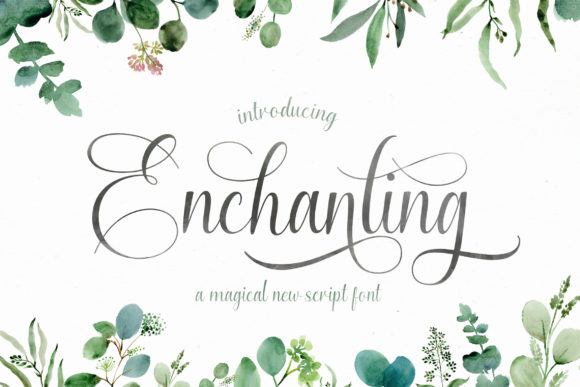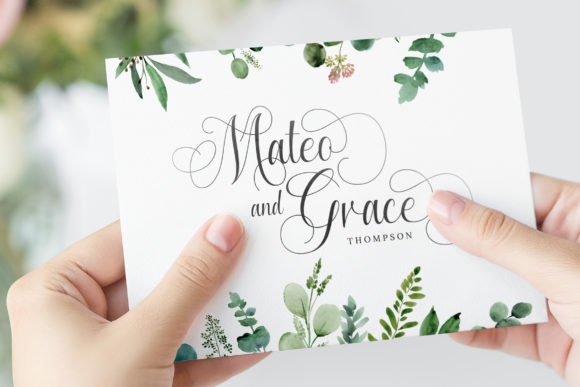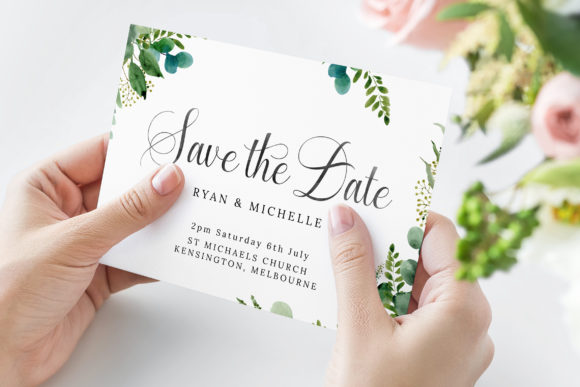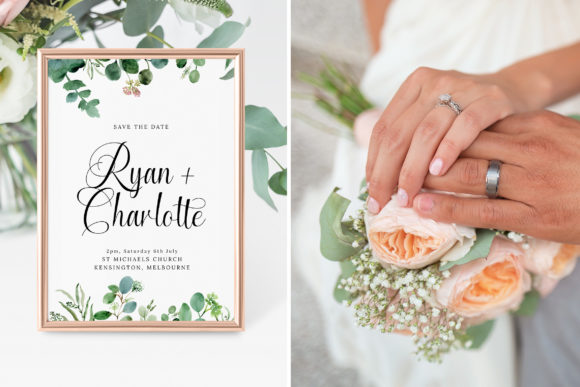
Enchanting Script Font: Elegant Calligraphy for Wedding & Logo Design
About the Enchanting Script Font
Welcome to the world of Enchanting Script Font, a typeface that will inspire your next great project. Enchanting Script is a lovely and timeless handwritten font. It is the best choice for creating eye catching logos, branding and quotes. Every letter has a unique and beautiful touch, which will make your design come alive!
Enchanting Script’s elegant, flowing forms are ideal for headlines, short text blocks, and branding applications where a touch of hand-crafted charm is desired. It excels in logo design, wedding invitations, and short quotes within a larger design. However, its delicate nature makes it unsuitable for body copy or extended text, as readability would suffer. Avoid using it in user interfaces or situations requiring high levels of legibility.
Its inherent romanticism pairs well with clean, modern sans-serifs like Montserrat or Lato for a balanced contrast. For a more vintage feel, consider pairing it with a classic serif such as Garamond or Playfair Display. Avoid pairing it with other highly decorative or script fonts to prevent visual clutter.
Enchanting Script possesses a sophisticated yet approachable personality, lending itself well to brands focused on beauty, luxury, or handcrafted goods. The font’s overall mood is romantic and elegant, conveying a sense of timeless quality and refined taste.
Enchanting Script Font Usage Examples
Enchanting Script Font Example